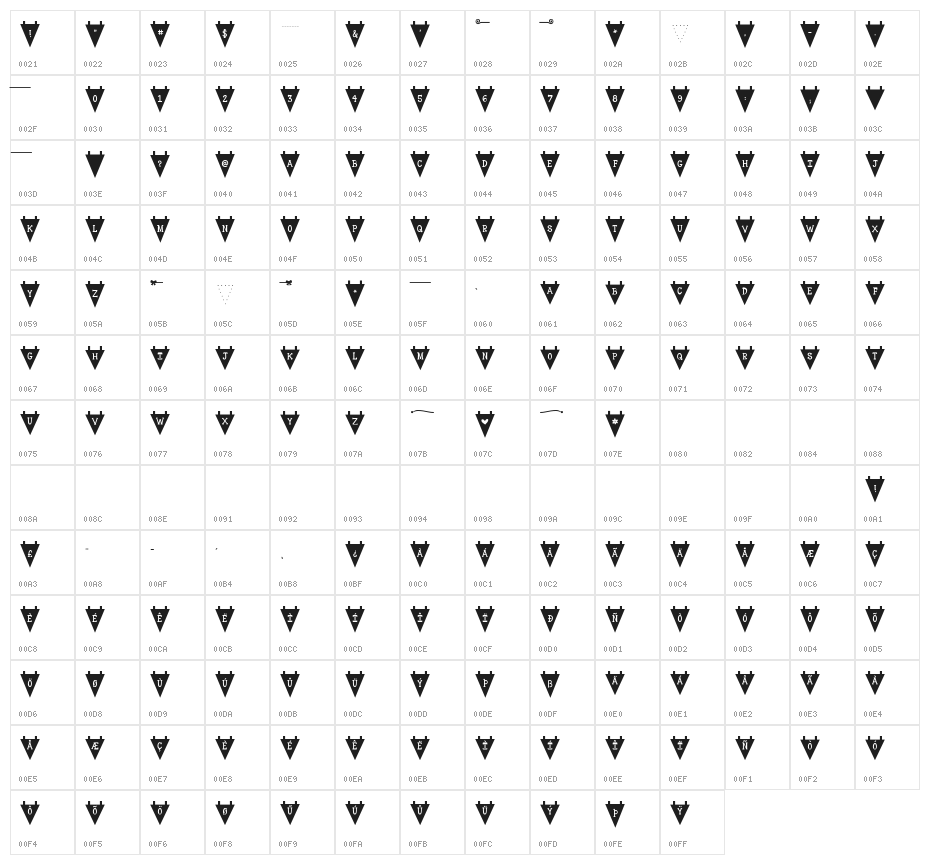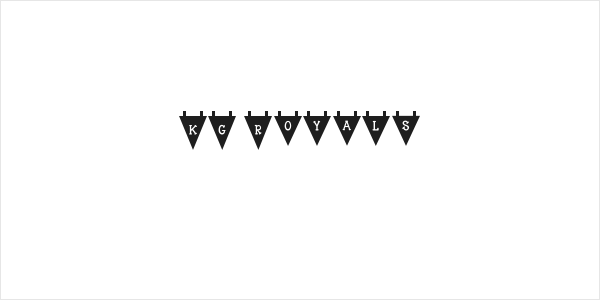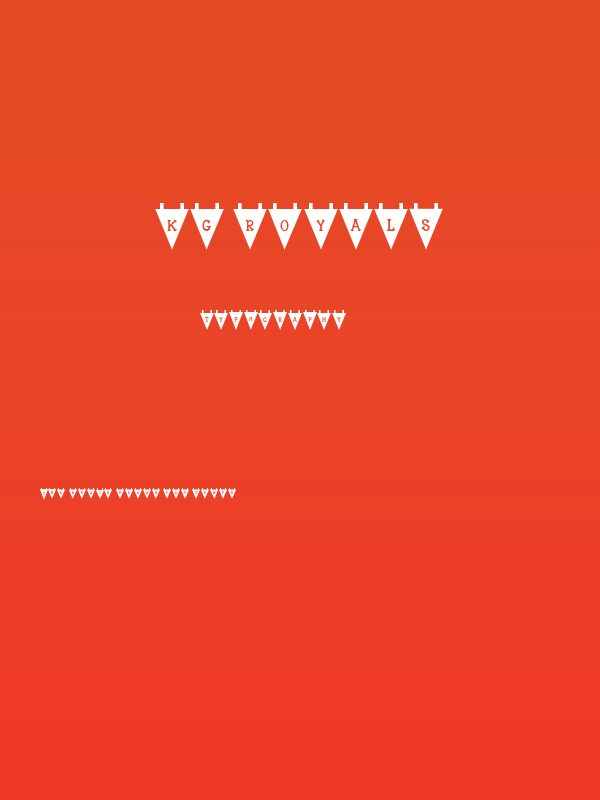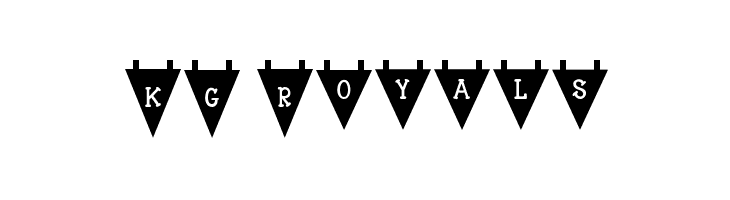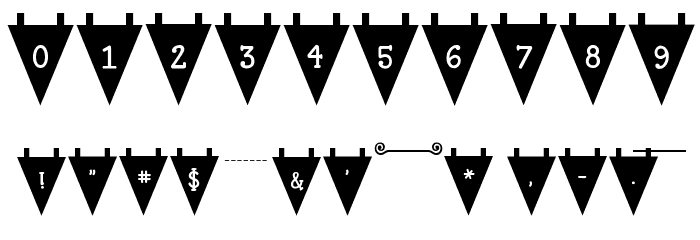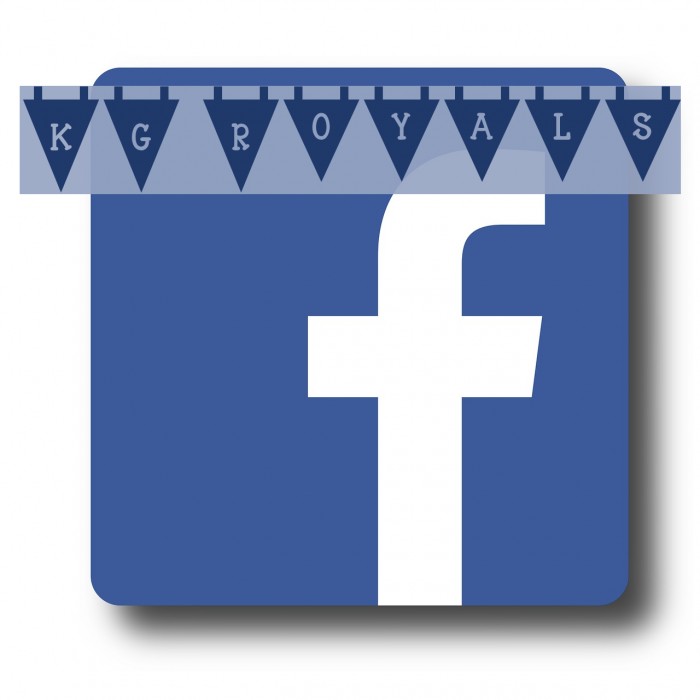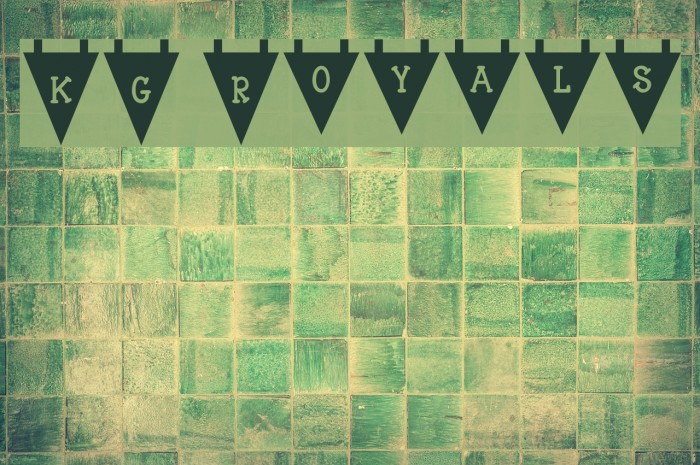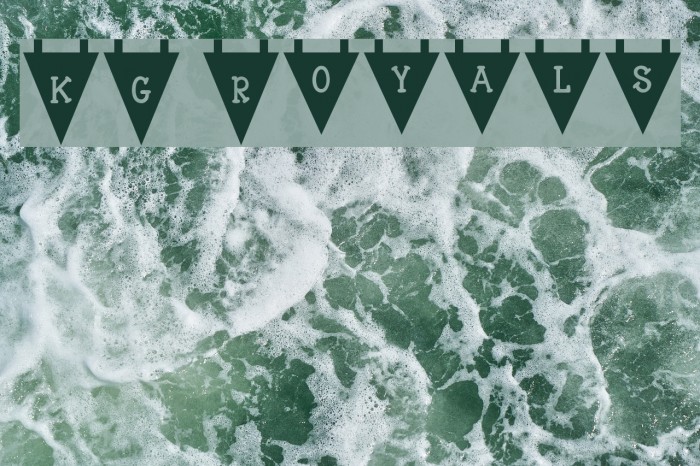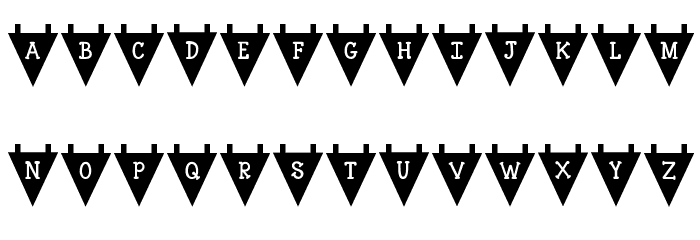
KG Royals Font
KG Royals Description
This font features a unique and playful design where each character is enclosed within a triangular pennant shape, reminiscent of festive banners. The letters are bold and uppercase, with a consistent geometric style that adds a sense of uniformity and structure. The numbers and special characters follow the same design principle, ensuring a cohesive look across all elements. The font's distinct style makes it ideal for projects that require a fun and celebratory touch, such as party invitations, banners, or event signage. Its boldness ensures readability while the decorative elements add a whimsical flair.
| Use Case | Headlines, Logos, Event Signage |
| Proposed Projects | Ideal for party invitations, event banners, festive signage, and playful branding materials. |